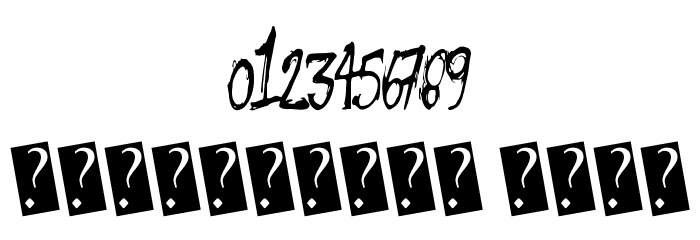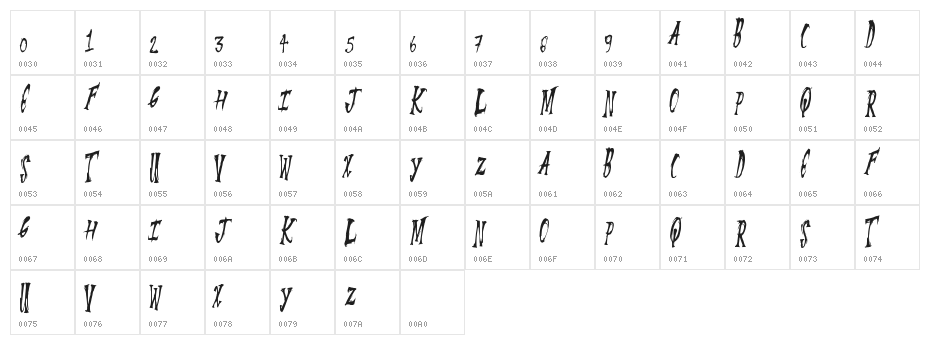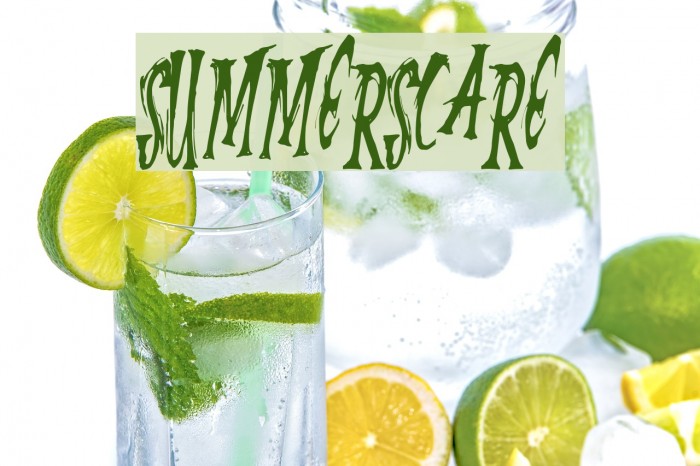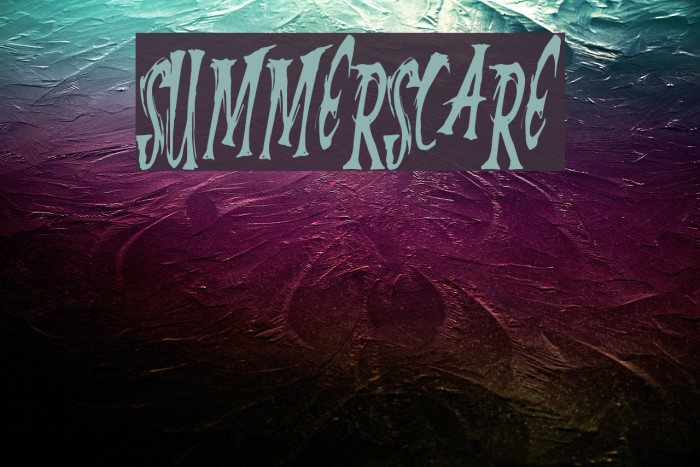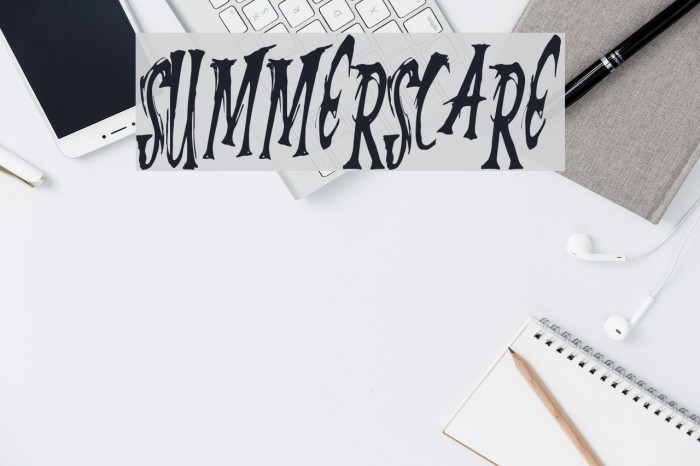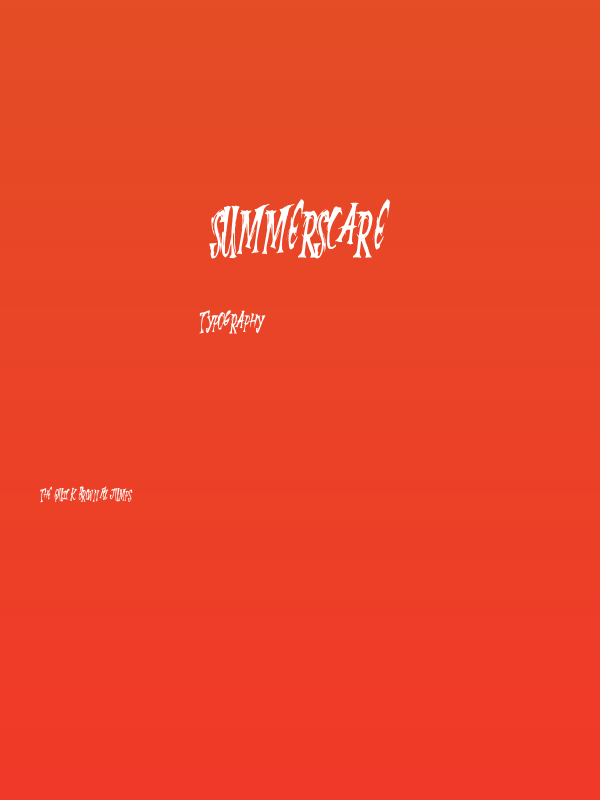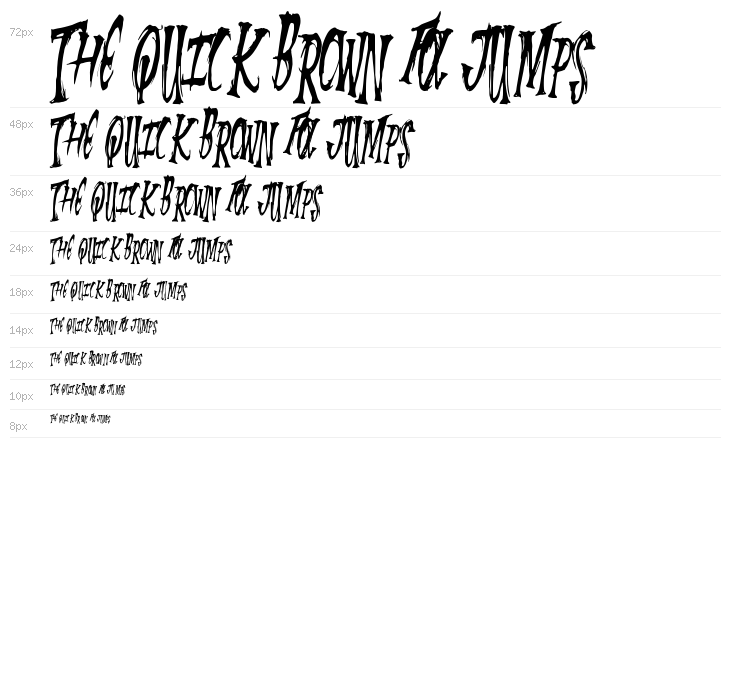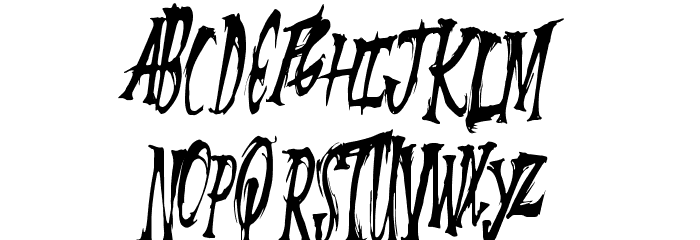
SummerScare Font
SummerScare Description
This font features a bold and jagged design, reminiscent of horror or thriller themes. The characters have an irregular, distressed appearance, with sharp edges and uneven strokes that create a sense of chaos and intensity. The uppercase and lowercase letters maintain this rugged style, while the numbers and special characters follow suit, enhancing the overall eerie aesthetic. The font's unique style makes it stand out, perfect for projects that require a dramatic and unsettling look.
Use CaseHeadlines, Posters, Themed Events
Proposed ProjectsIdeal for Halloween-themed designs, horror movie posters, spooky event invitations, and any project needing a dramatic, eerie touch.